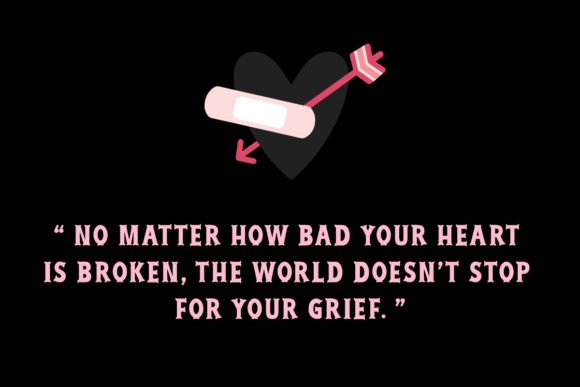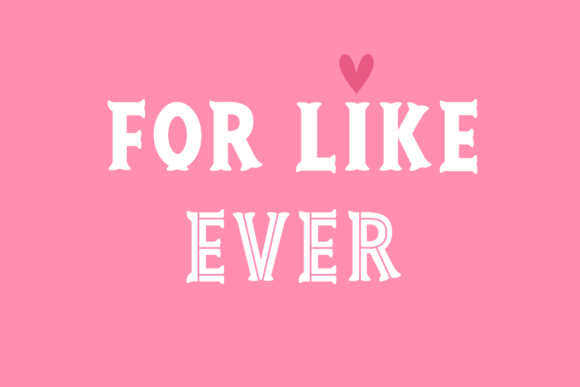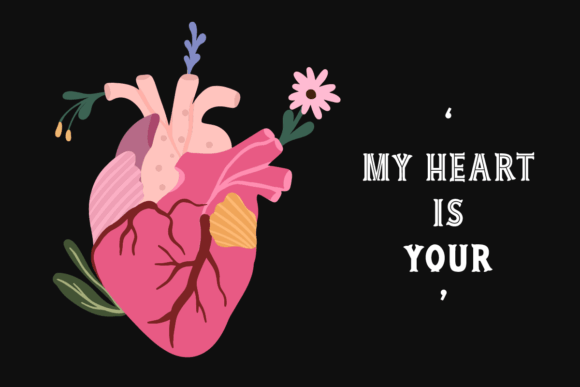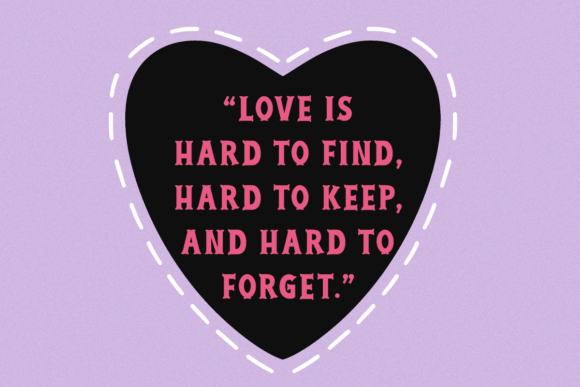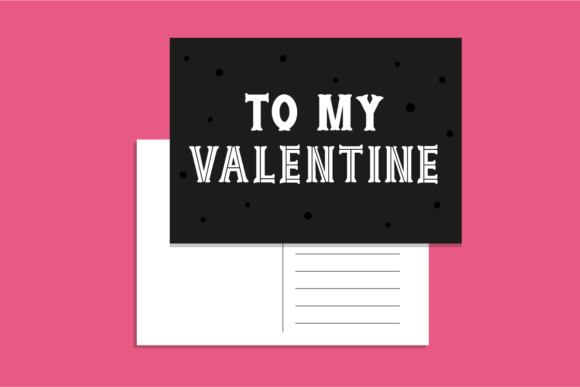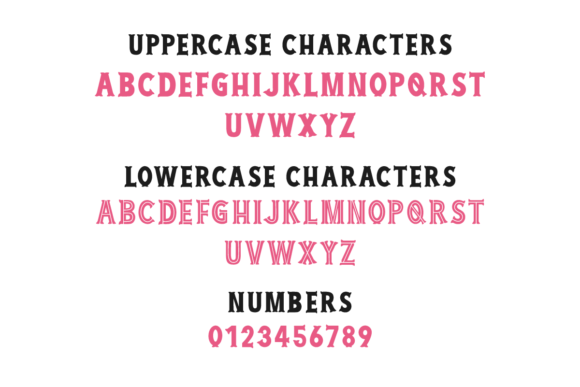
Introduction to Love and Pain Font
Love and Pain is a cool and unique valentine font.
Perfect for circuit projects, shirts, retro designs, invitation cards, mugs, stickers, playful quotes, creating posters, logos, greeting cards, packaging, decorating the illustration and so much more .
Key Features of Love and Pain Font
Why Choose Love and Pain Font?
Love and Pain Font offers exceptional quality and versatility, making it a valuable addition to your design toolkit. Whether you’re creating for personal projects or commercial use, Love and Pain Font delivers professional results.